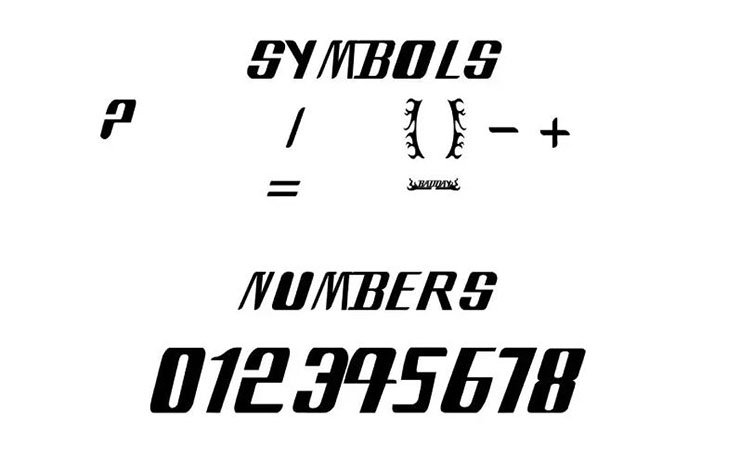
Introducing Bleach Logo Font! Bleach is a Japanese anime television series based on Tite Kubo’s original manga series of the same name.
Bleach is a logo display typeface designed by Danilo Belardinelli. This font features bold, angular strokes and slightly condensed proportions.
Bleach Logo Font Information
Font Name: | Bleach Logo Font Family |
Style: | Logo, Techno, Display |
Font Designer: | Danilo Belardinelli |